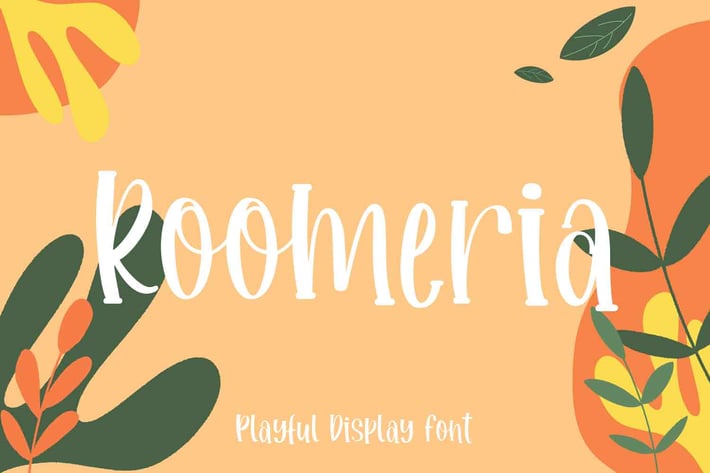
Roomeria Playful Font
TempCraft
Roomeria Playful Font is a specially crafted for children, Boys, Kindergarten, Birthday, Kid, Cartoon, and Comic purposes.